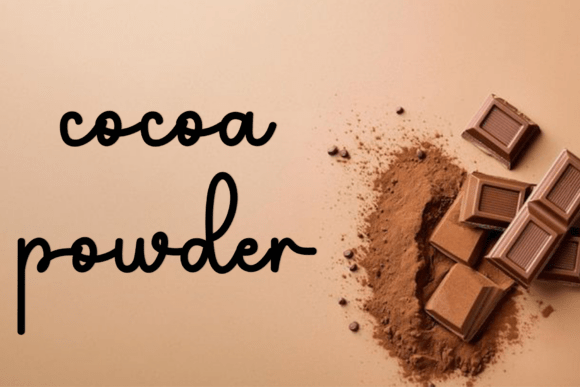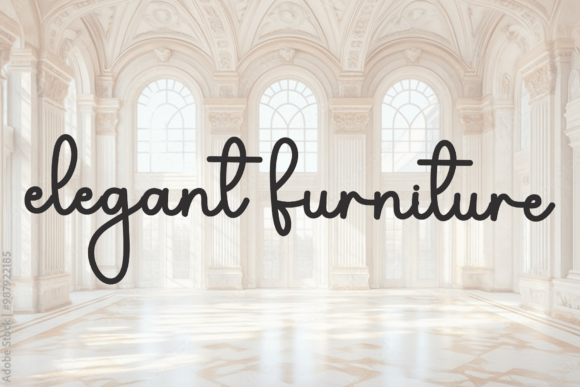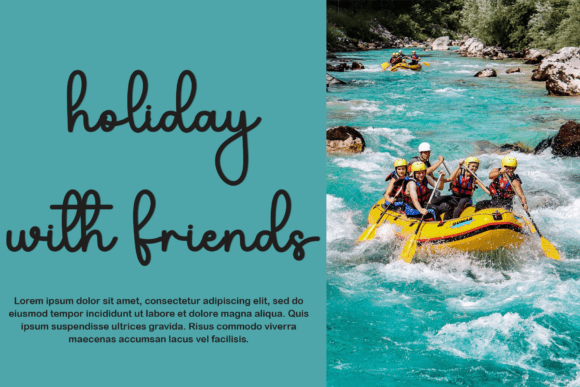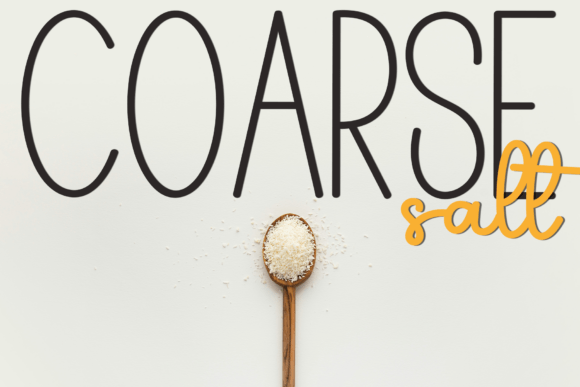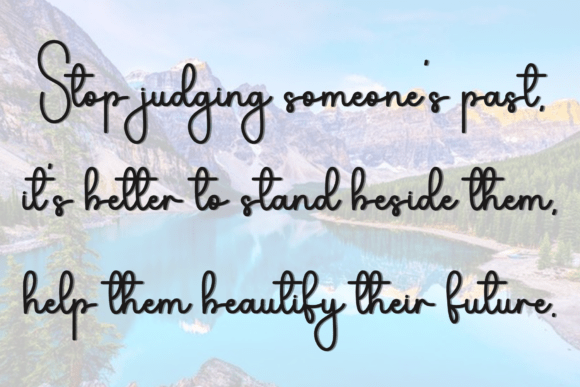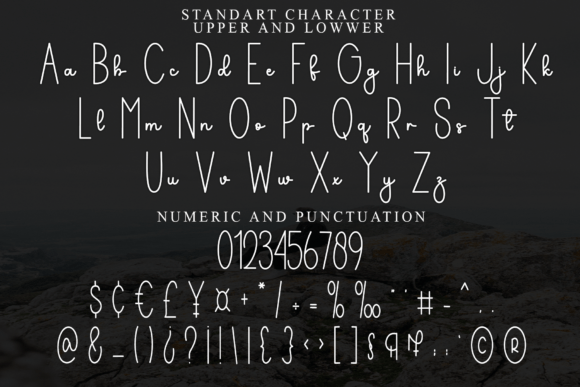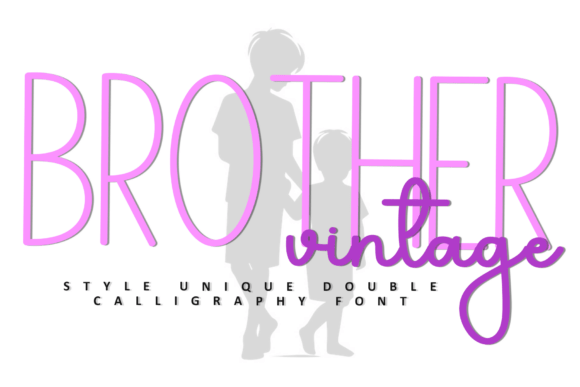
I still remember the frustration of working on a design project, hours spent crafting the perfect layout, only to realize that the font I chose wasn’t quite right. The client wanted something that would make their brand stand out, but I was stuck with a font that looked like every other project I’d done before. That’s when I stumbled upon the Brother Vintage font, and it changed the game for me.
A Game-Changing Font: Brother Vintage
Brother Vintage is a beautiful and eye-catching font designed with a soft, unique touch. Its distinctive strokes give it a special character, making it meaningful and versatile for future use. With various characters, it’s perfect for design projects, crafts, and other creative works. Compatible with various applications, including Windows and open-source platforms, this natural font style is ideal for a wide range of products.
An Honest Review: What I Love and What I Don’t
- ✅ Unique and distinctive strokes that set it apart from other fonts
- ✅ Highly versatile and can be used for a wide range of design projects
- ✅ Easy to read and understand, even at small sizes
- ⚠️ Limited availability of certain characters and glyphs
- ⚠️ May not be suitable for very formal or traditional designs
The Brother Vintage font was inspired by the classic designs of the past, with a modern twist. The designer wanted to create a font that would be both nostalgic and fresh, with a unique character that would set it apart from other fonts.
Q: What is the Brother Vintage font?
A: The Brother Vintage font is a beautiful and eye-catching font designed with a soft, unique touch.